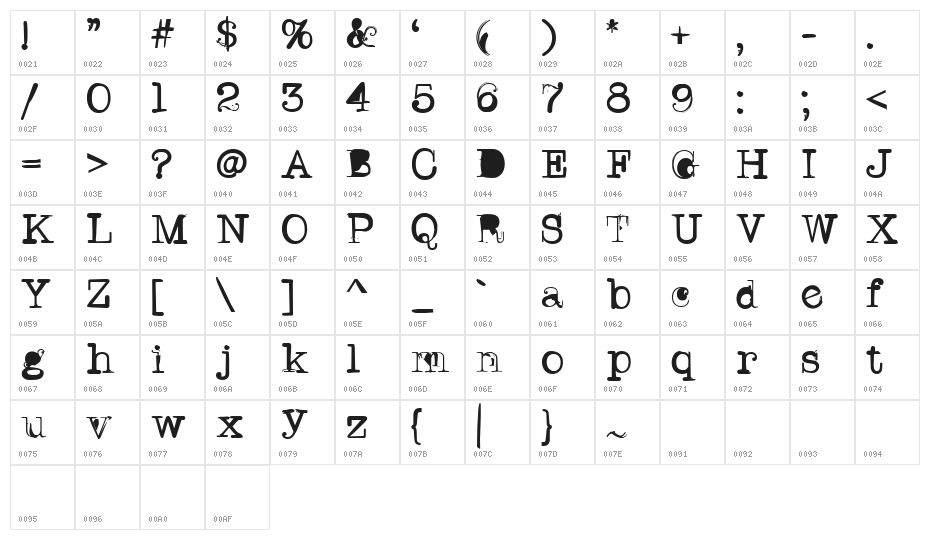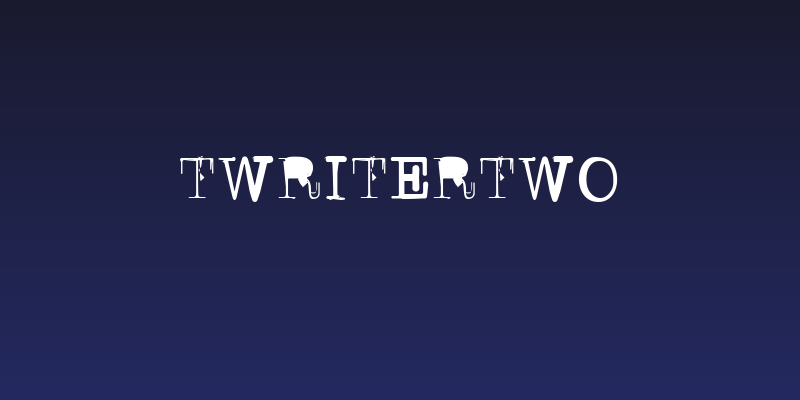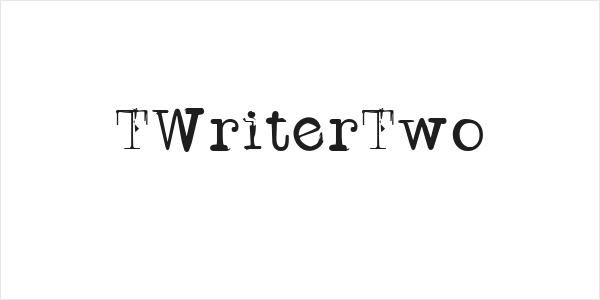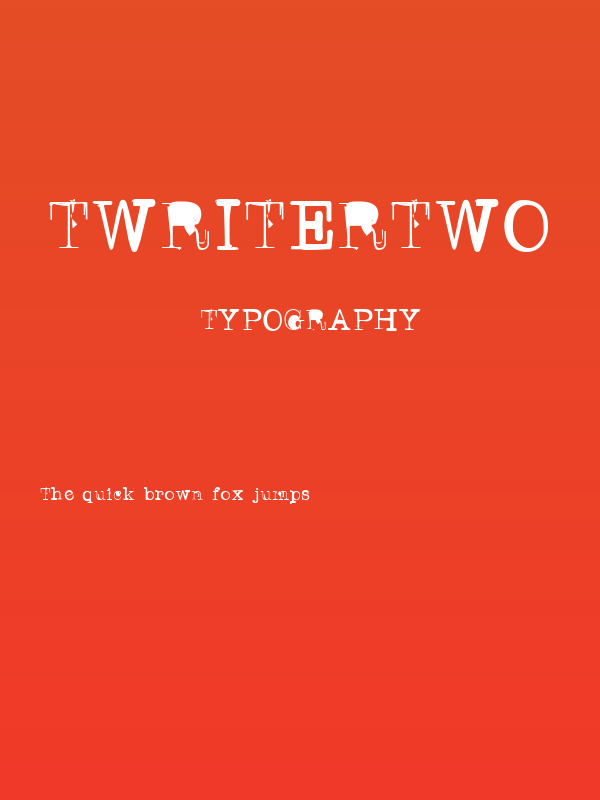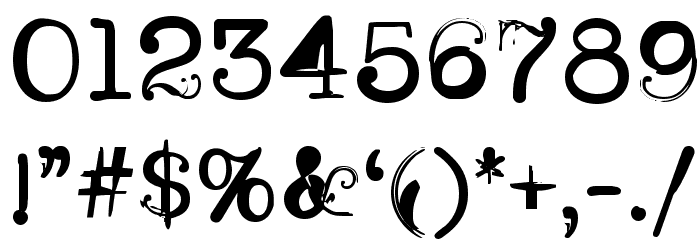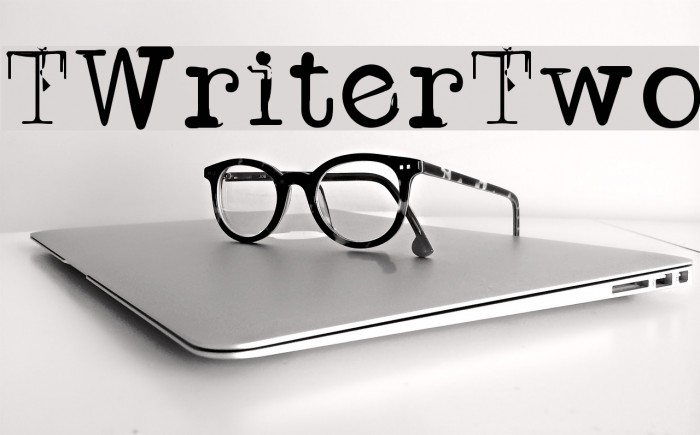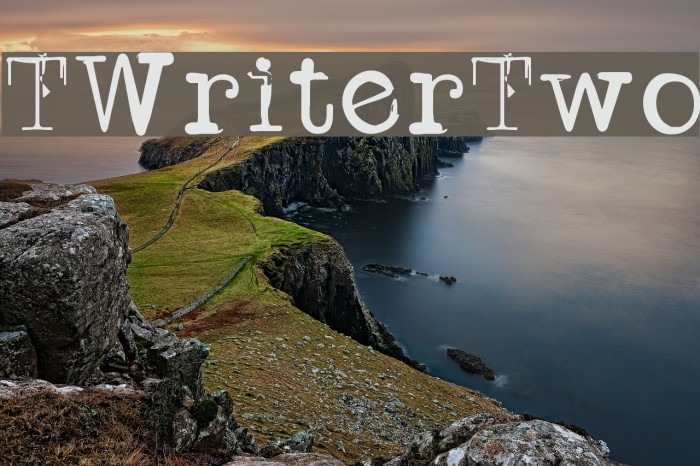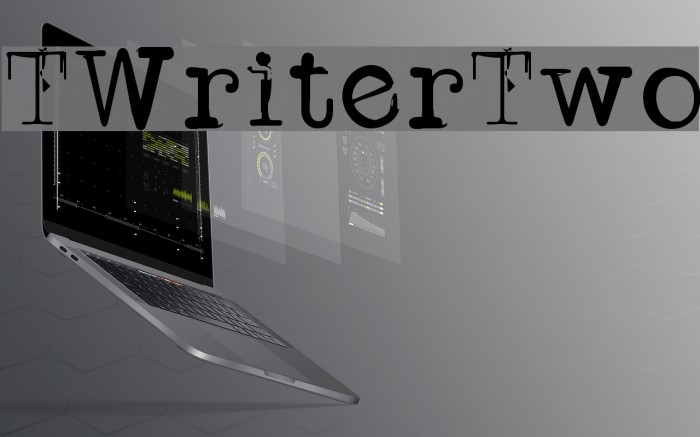
TWriterTwo Font
TWriterTwo Description
This font features a bold, distressed style with a vintage typewriter aesthetic. The characters are serifed, with varying degrees of wear and tear, giving each letter a unique, textured appearance. The uppercase and lowercase letters maintain a consistent design, with some characters appearing more eroded than others. Numbers and special characters follow the same distressed theme, adding to the overall cohesive look. The font's uneven texture and bold presence make it stand out, ideal for projects that require a retro or grunge feel.
| Proposed Projects | Ideal for vintage-themed designs, posters, album covers, and branding that requires a retro or grunge aesthetic. |